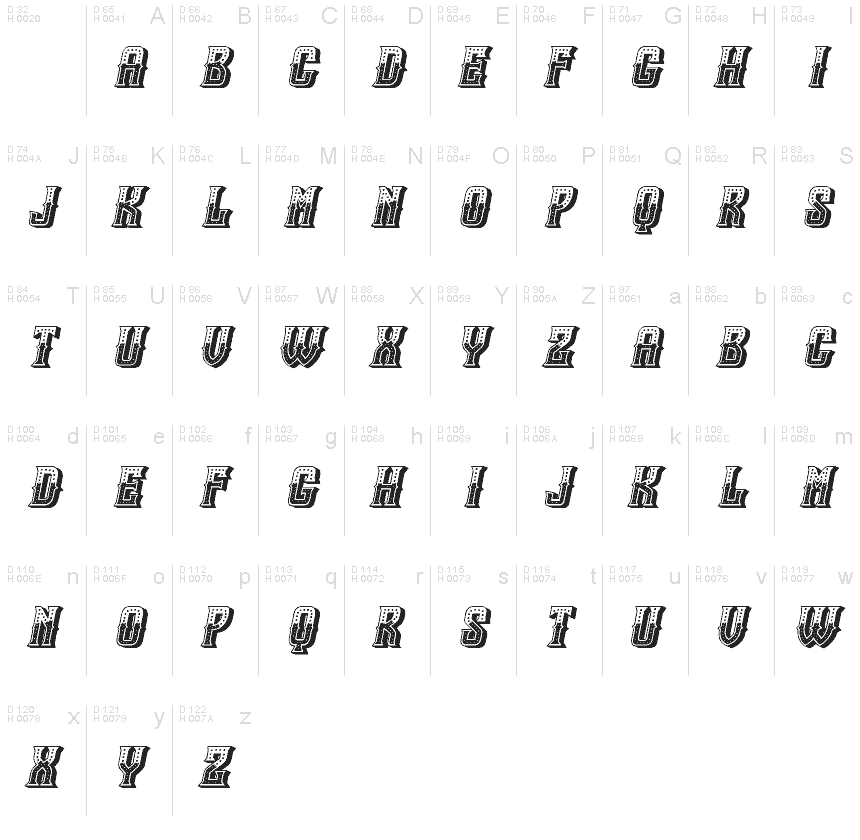
Laufen Regular
Laufen font by Vladimir Nikolic is a decorative condensed display typeface that captivates with its Victorian-inspired style. The ornamental detailing and decorative patterns bring an elegant, theatrical presence to this font. Laufen will undoubtedly capture attention, given its strong emphasis on vintage aesthetics.